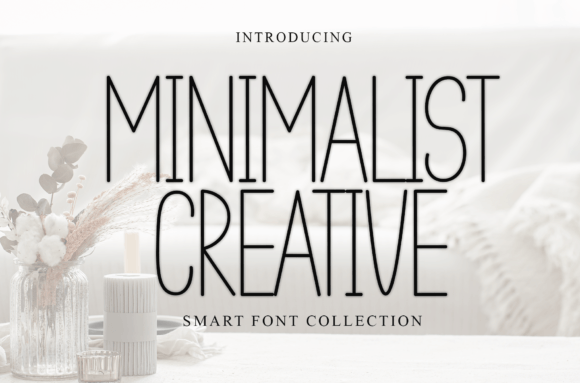
Welcome to the realm of Minimalist Creative, a font crafted for your artistic expression. This sans serif font exudes charm and versatility, offering an effortlessly down-to-earth aesthetic. With its exceptional readability, Minimalist Creative seamlessly blends into any design, becoming an integral part of your creative vision.
Whether you're crafting captivating logos that demand attention or creating dynamic headlines that leap off the page, Minimalist Creative is your steadfast companion. Its inherent flexibility allows it to harmonize with diverse backgrounds, enhancing their appeal without overpowering their message. As a standalone element, Minimalist Creative commands attention with its striking presence.
Step into a world where creativity knows no bounds, where your imagination dances freely across digital canvases. With Minimalist Creative as your font of choice, you'll discover endless possibilities to captivate and inspire your audience. Let your designs radiate with a captivating charm that resonates with your target audience.
Unleash the power of Minimalist Creative and transform your digital creations into captivating expressions of art. Experience the joy of seamless readability and revel in the versatility that knows no limits. Embark on a creative journey where imagination thrives and your designs flourish.